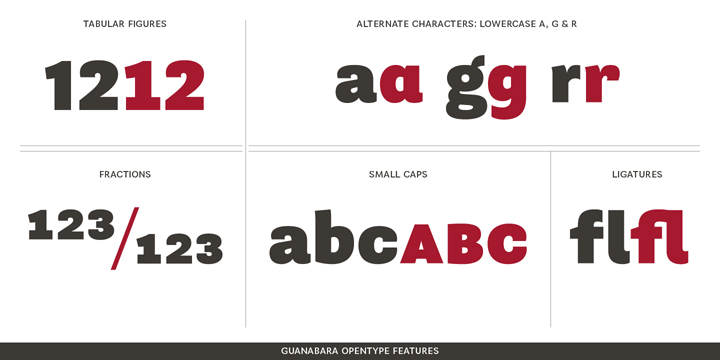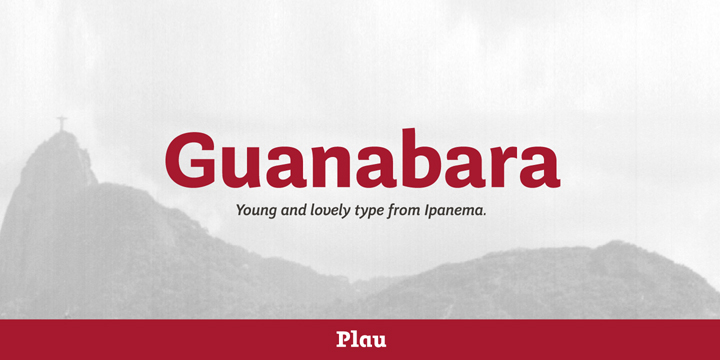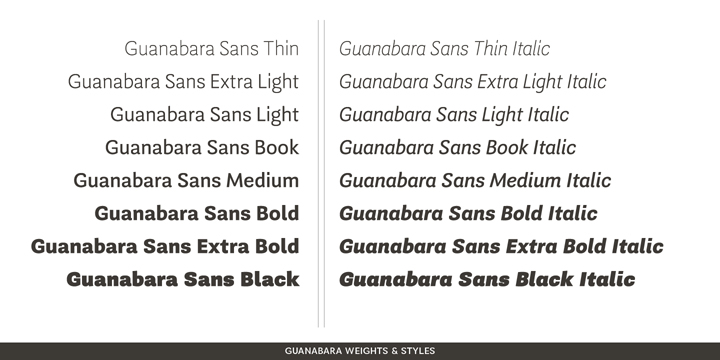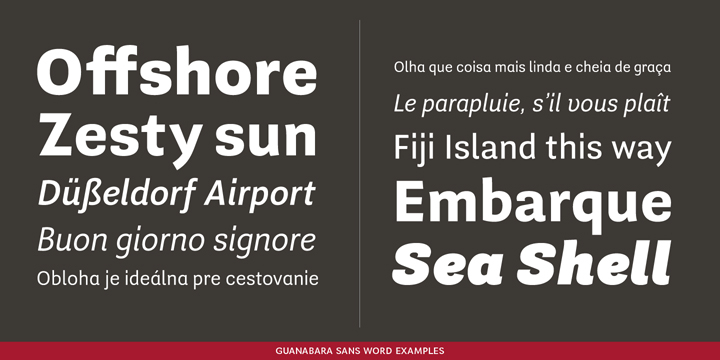
Guanabara Sans is a sans serif font family. This typeface has sixteen styles and was published by Plau.
A sixteen font family. This contains every font in the Guanabara Sans Family.
Guanabara is the third release of Plau Type Foundry (formerly known as Niramekko). It started from the need of a wayfinding typeface that had personality enough to be the brand typeface for a city.
The city of Rio de Janeiro, with its never-ending curves and all year long summer weather provided the constraints and requirements of this typeface.
From there, it evolved to be a workhorse, with 8 weights from Thin to Black and matching true italics. It just had to have the features that all us designers have grown to love, such as alternate letters (a, g and r for the romans), tabular and proportional figures in lining and oldstyle set-ups as well as small caps, fractions and all that jazz (I mean, samba).
And it needed to be recognizable and distinct. For that, design features like tapered R legs, capitals with classic proportions and calligraphic finishes on the terminals proved crucial.
And last, but not least, like Rio, it had to welcome many cultures.
We came to think of it as the “Typeface from Ipanema”, with a classic, timeless look, swinging elegance and joyful attitude.